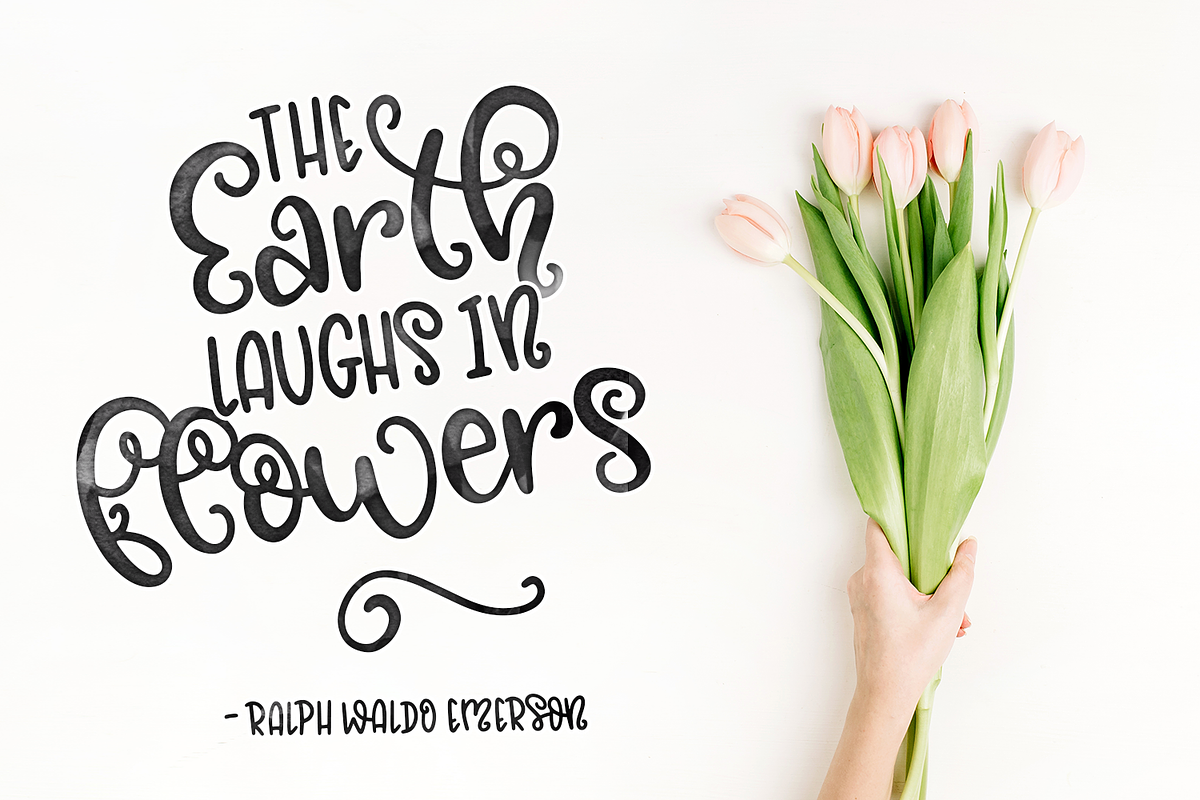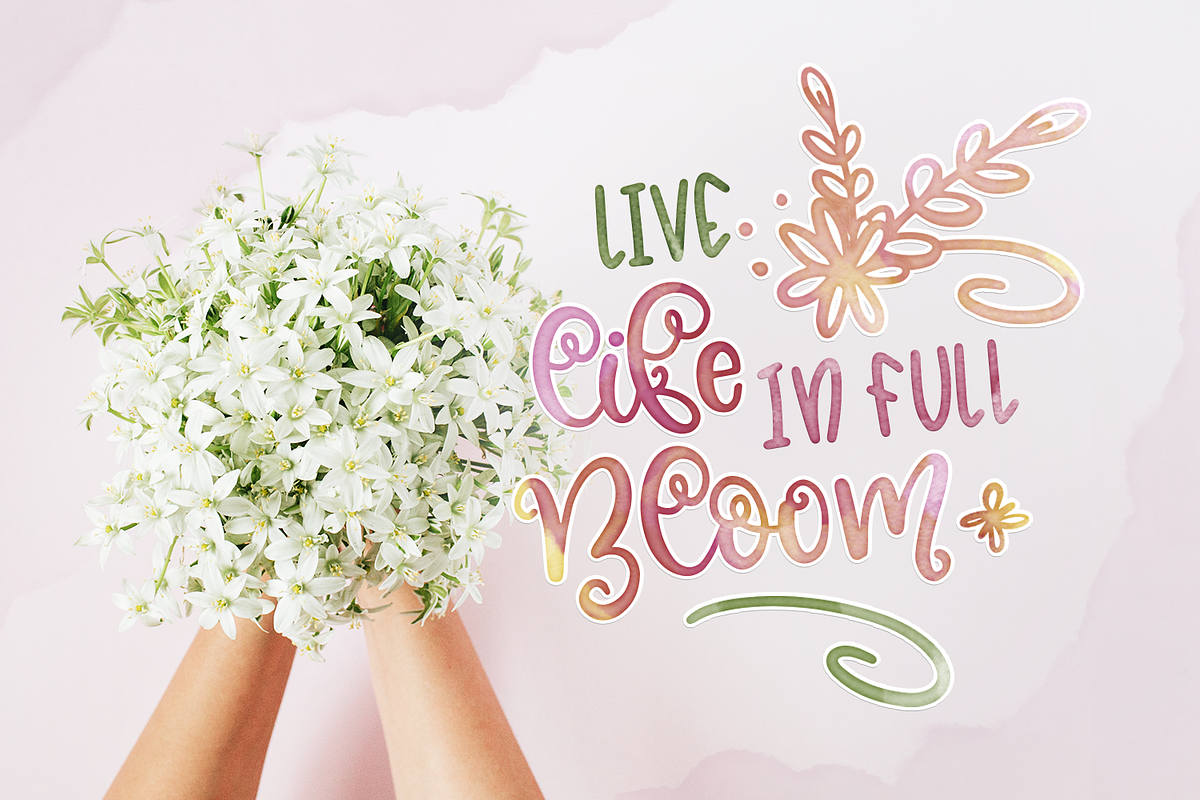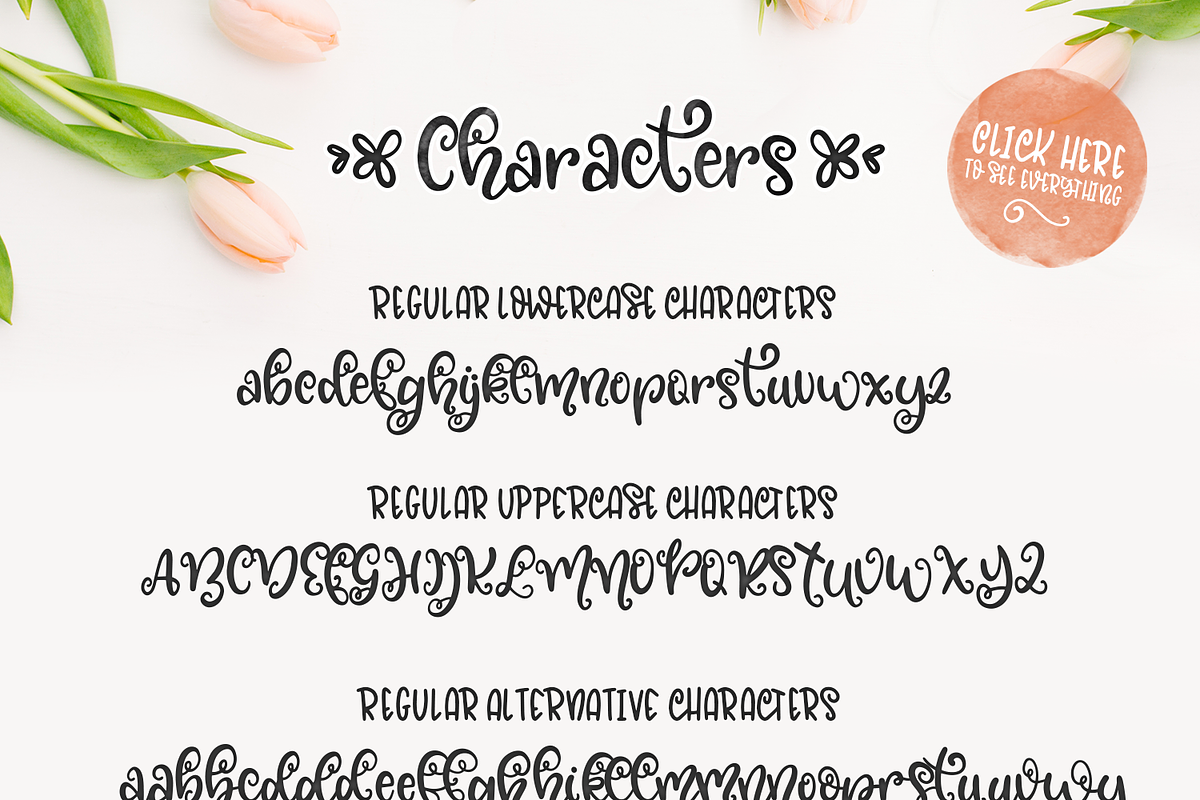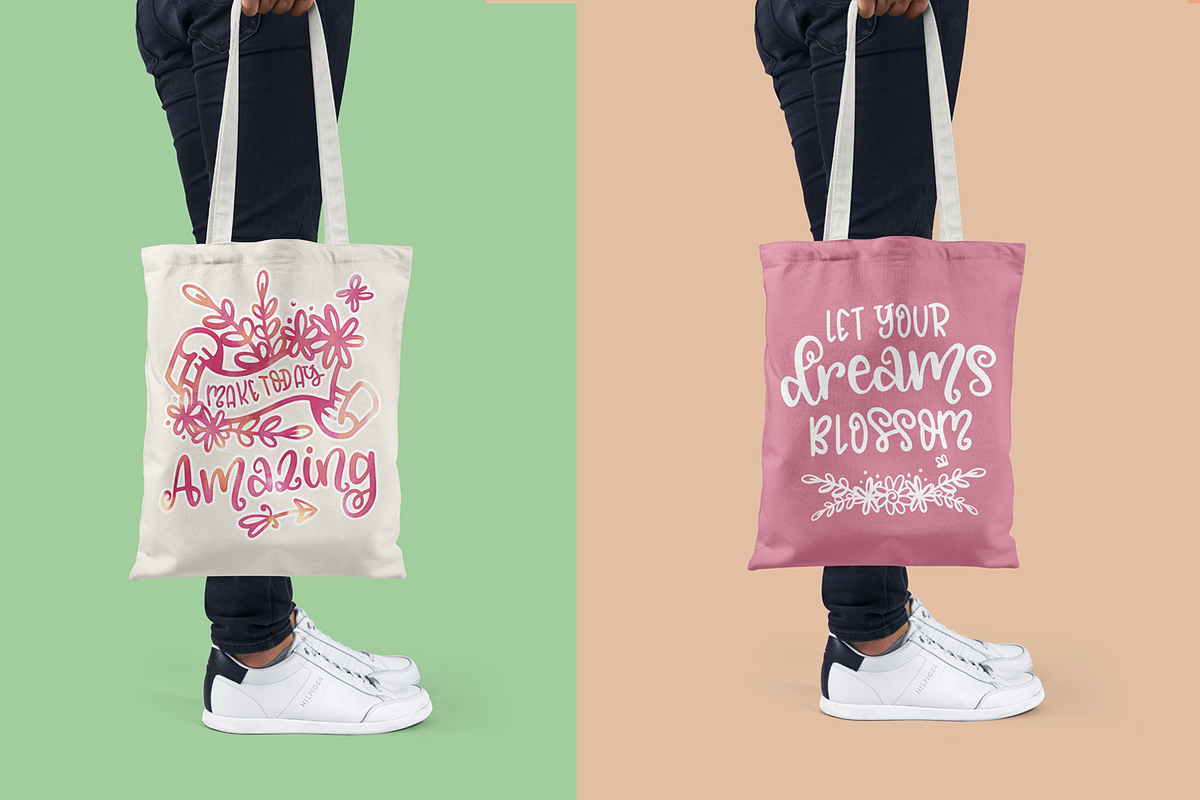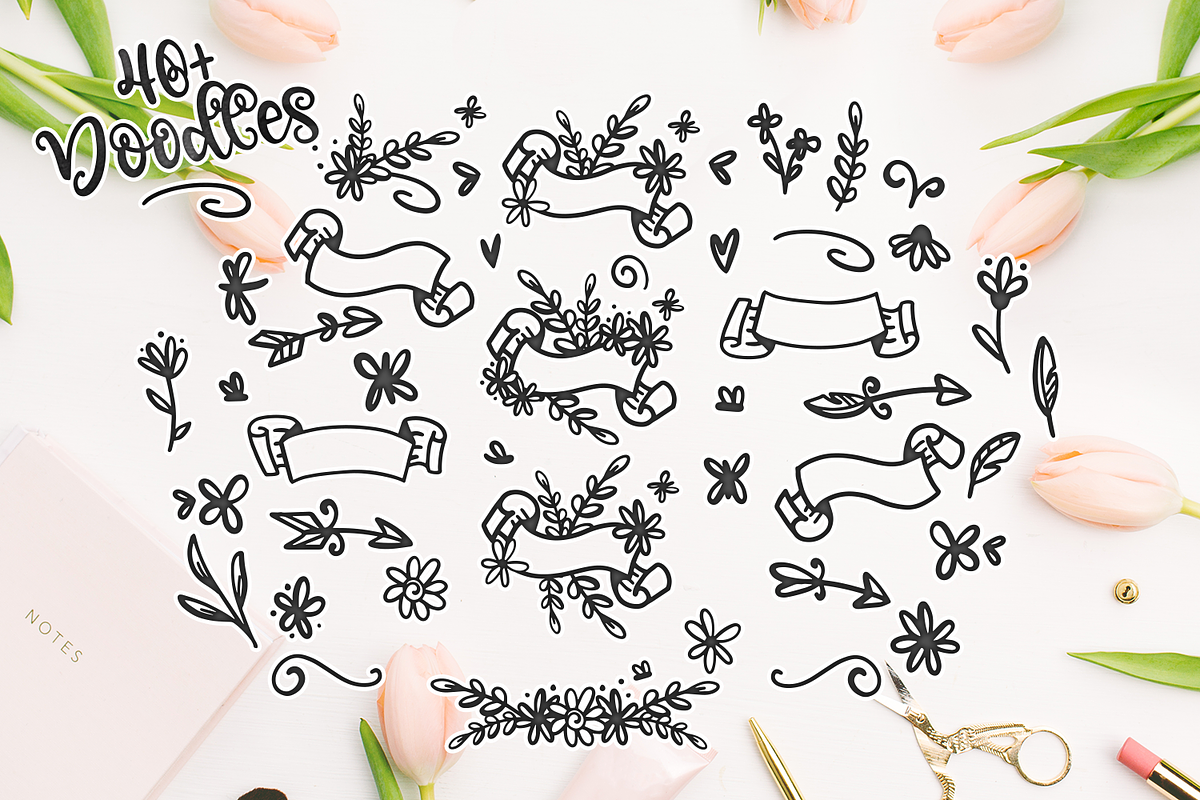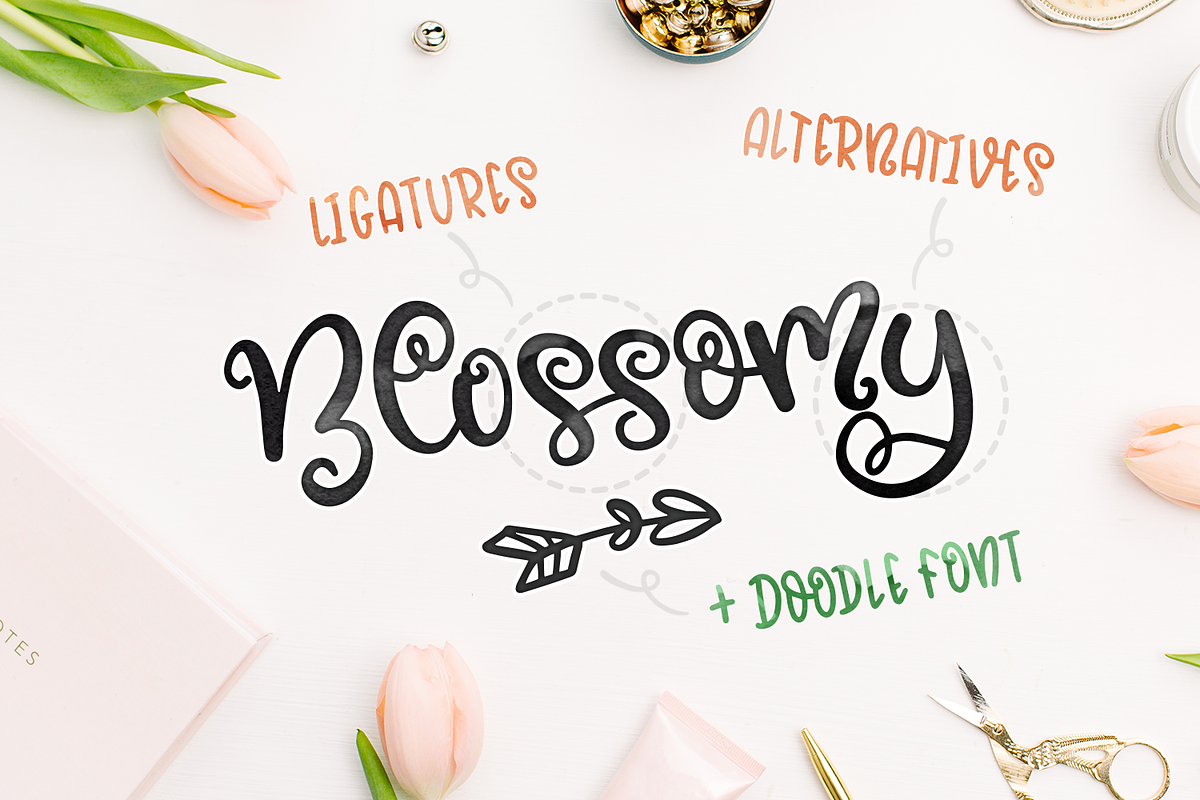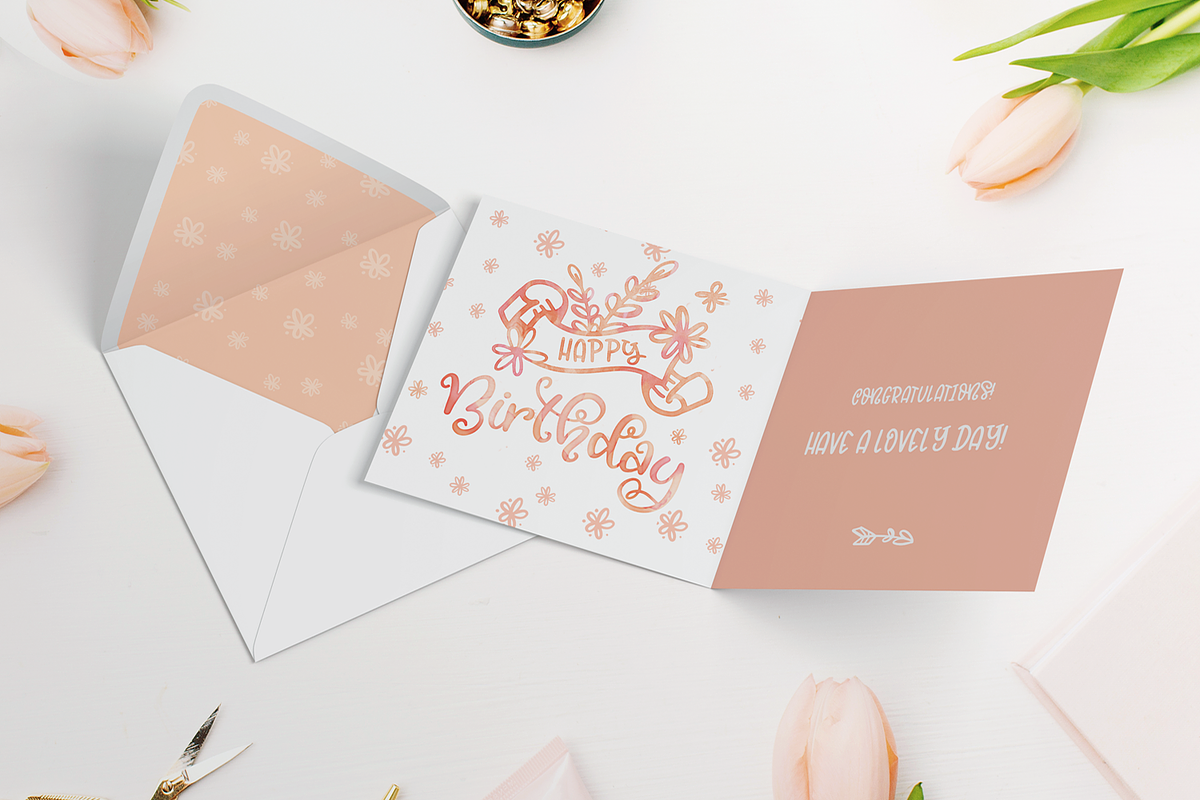
Blossomy - Font Duo + Floral Doodles
Introducing Blossomy, start your happy flower season with this cute script font. Blossomy is a pretty whimsical font that has some floral touch to it. It can be used for logo's, tote bags, cards, floral designs, scrapbooking and ofcourse much more. It contains ligatures and alternatives to finish it off and give it a unique style. As a extra duo font I've made a Line Font that has a sleek style to it, to compliment the Blossomy regular font.
It also comes with 42 cute flower doodles that you can use in your design projects.
Both fonts, The Line and Regular Script font are multilingual. They contain the following characters in upper- and lowercase.